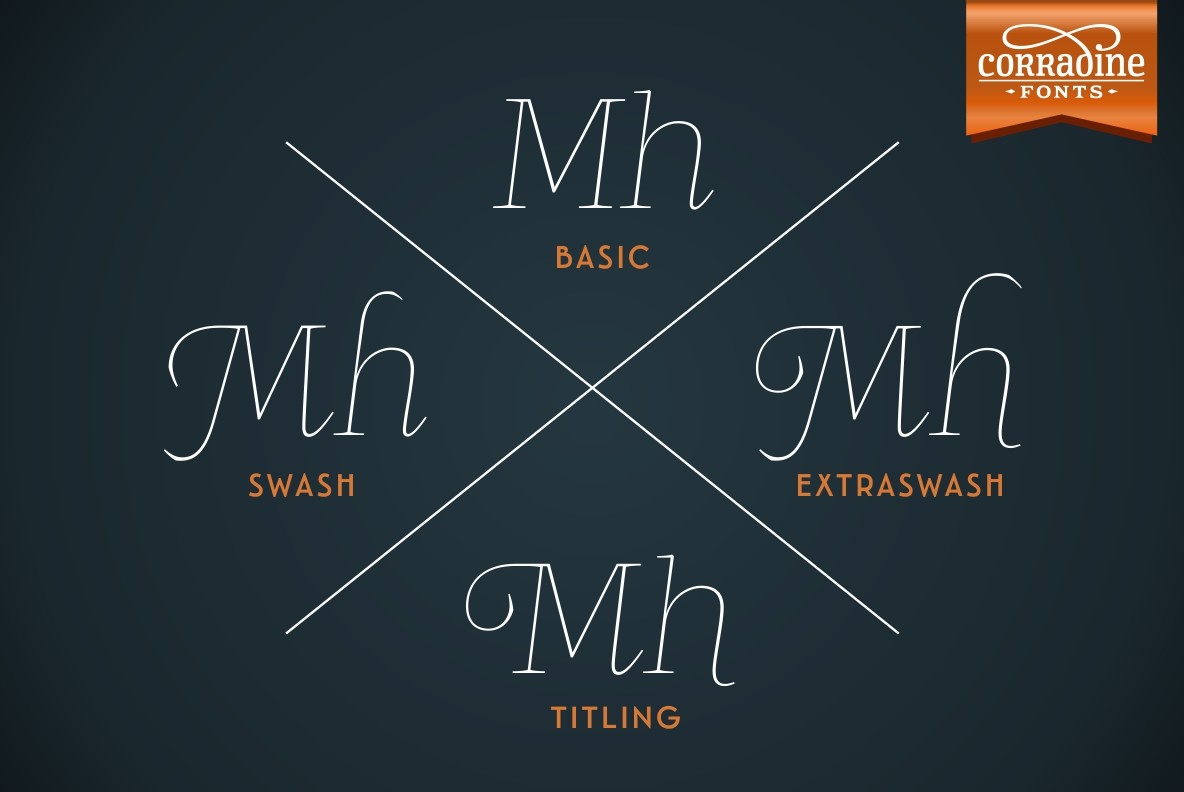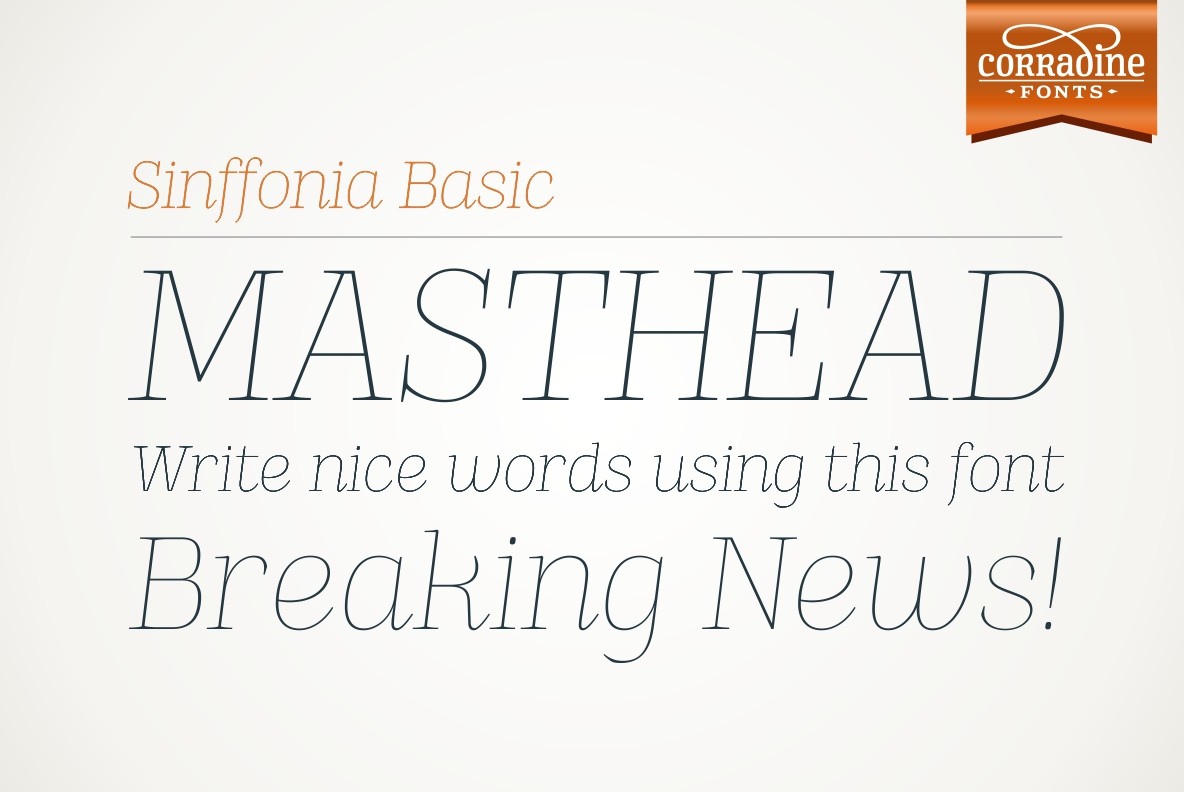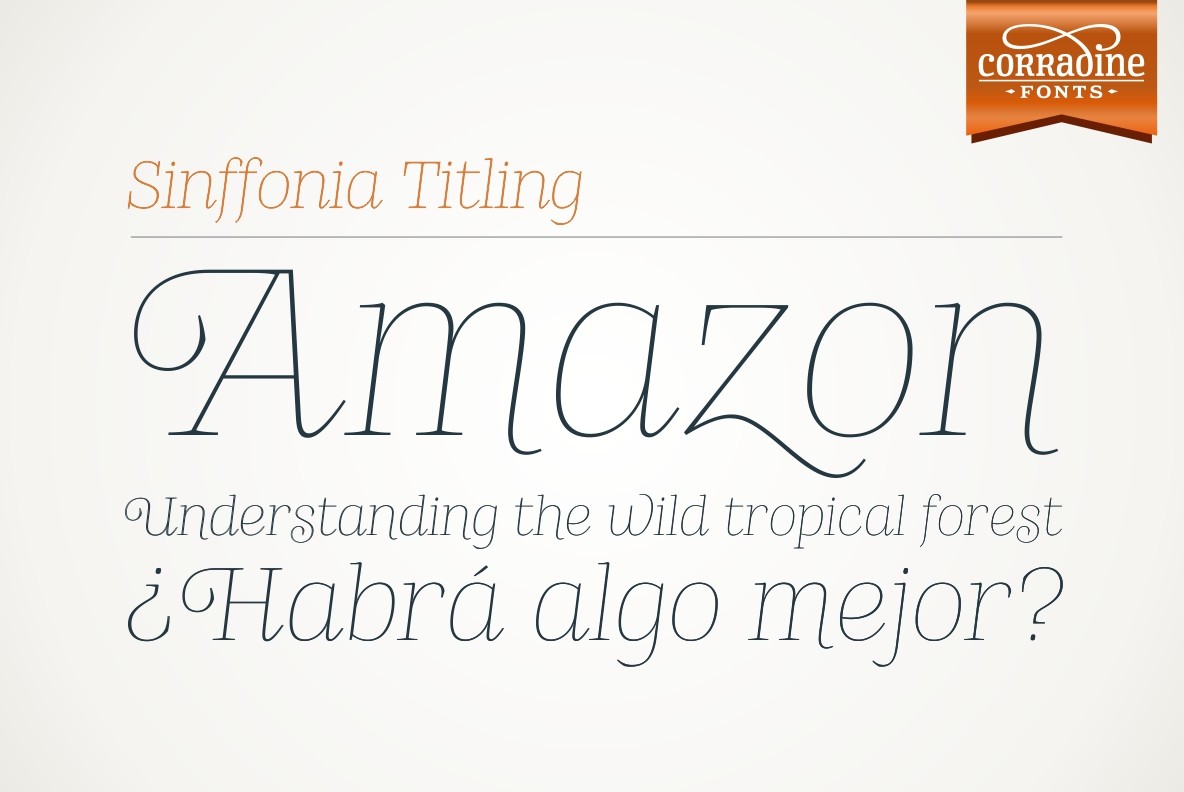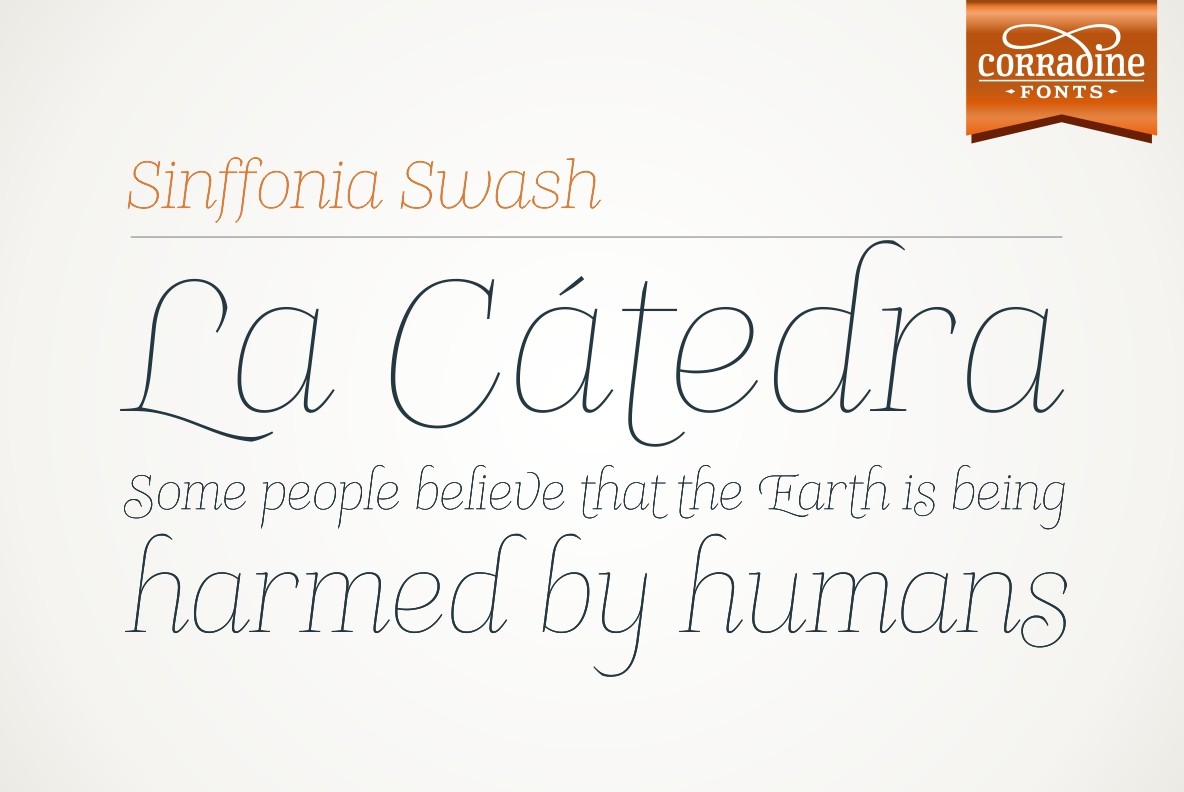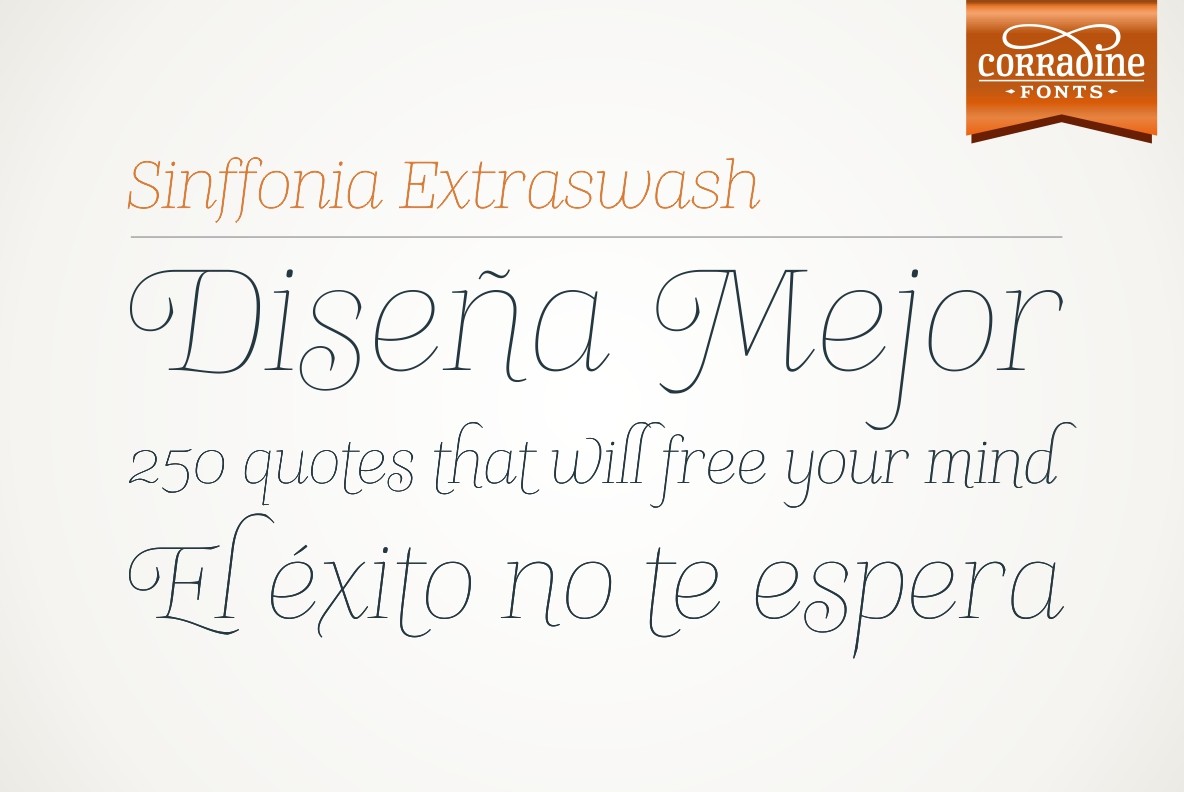
Sinffonia Font
Sinffonia Extraswash
Sinffonia Basic
Sinffonia Swash
Sinffonia Titling
Sinffonia is a beautiful ornamental font family. Its thin weight and roman style makes very elegant and ideal for any high quality project.